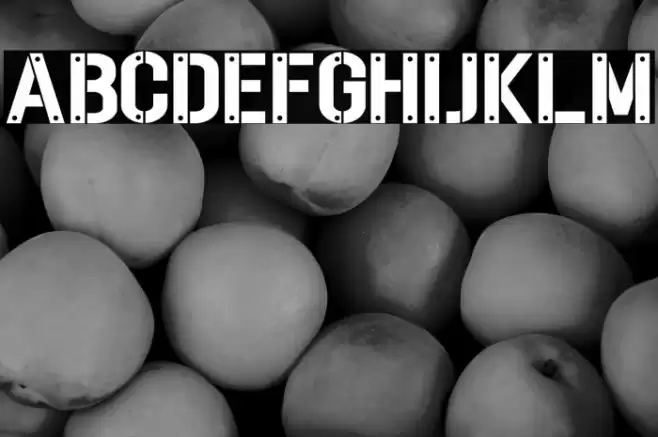
STENCILAND Font
STENCILAND Description
This font features a bold, industrial design reminiscent of traditional stencil lettering. Each character is defined by strong, solid lines with distinct cut-out sections that mimic the look of stenciled text. The uppercase letters are uniform in height and width, creating a cohesive and structured appearance. The font's geometric shapes and sharp angles give it a modern yet utilitarian feel, making it ideal for projects that require a rugged, no-nonsense aesthetic. The spacing between characters is consistent, ensuring readability while maintaining the font's distinctive style.
A bold, industrial stencil-style font with geometric shapes and cut-out sections from Uncategorized fonts.
- Font: STENCILAND
- Proposed Projects: Ideal for signage, posters, branding, and any project needing a strong, industrial look.
- Overall Style: Industrial, Modern
- Use Case: Headlines, Logos, Signage